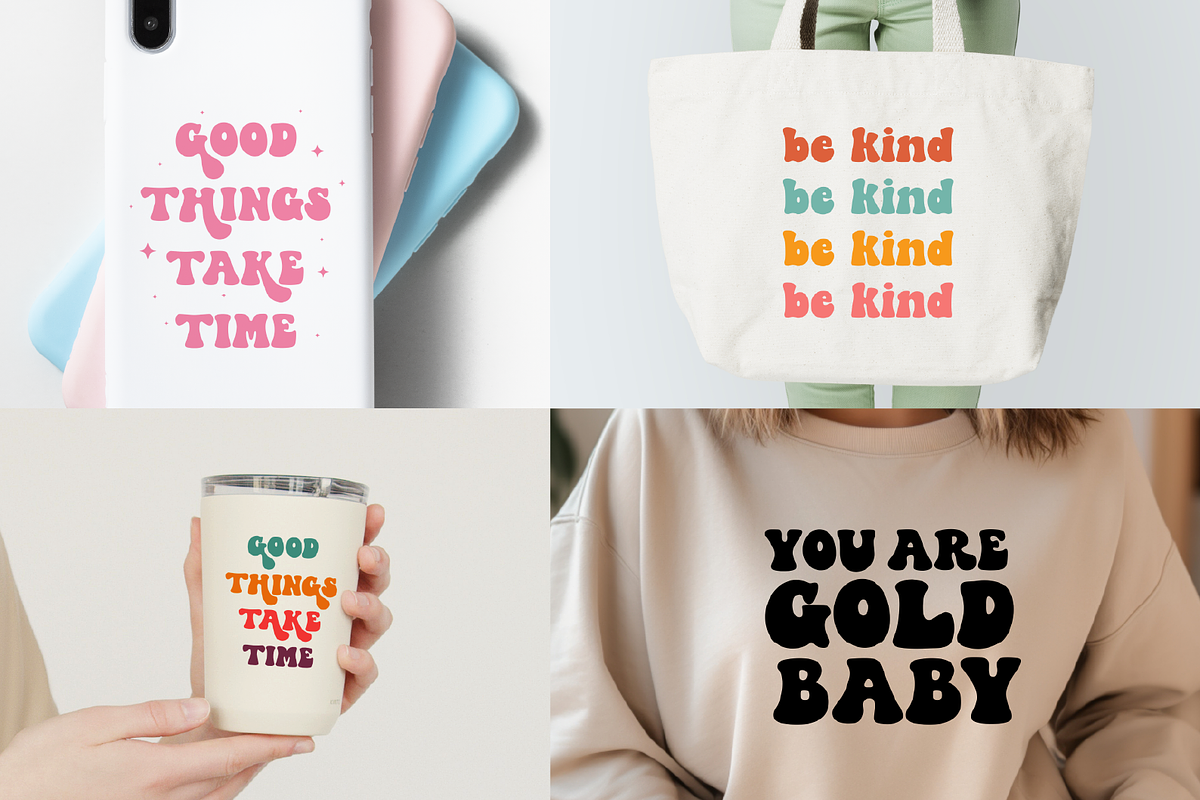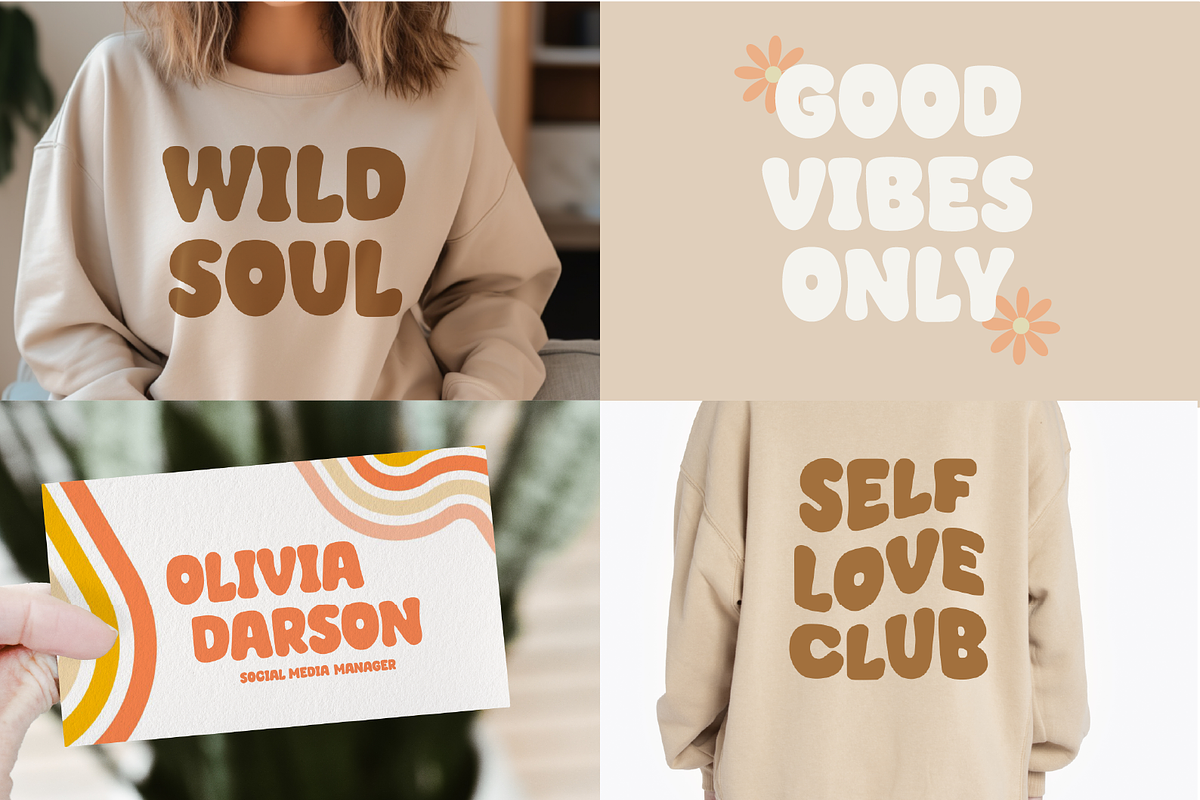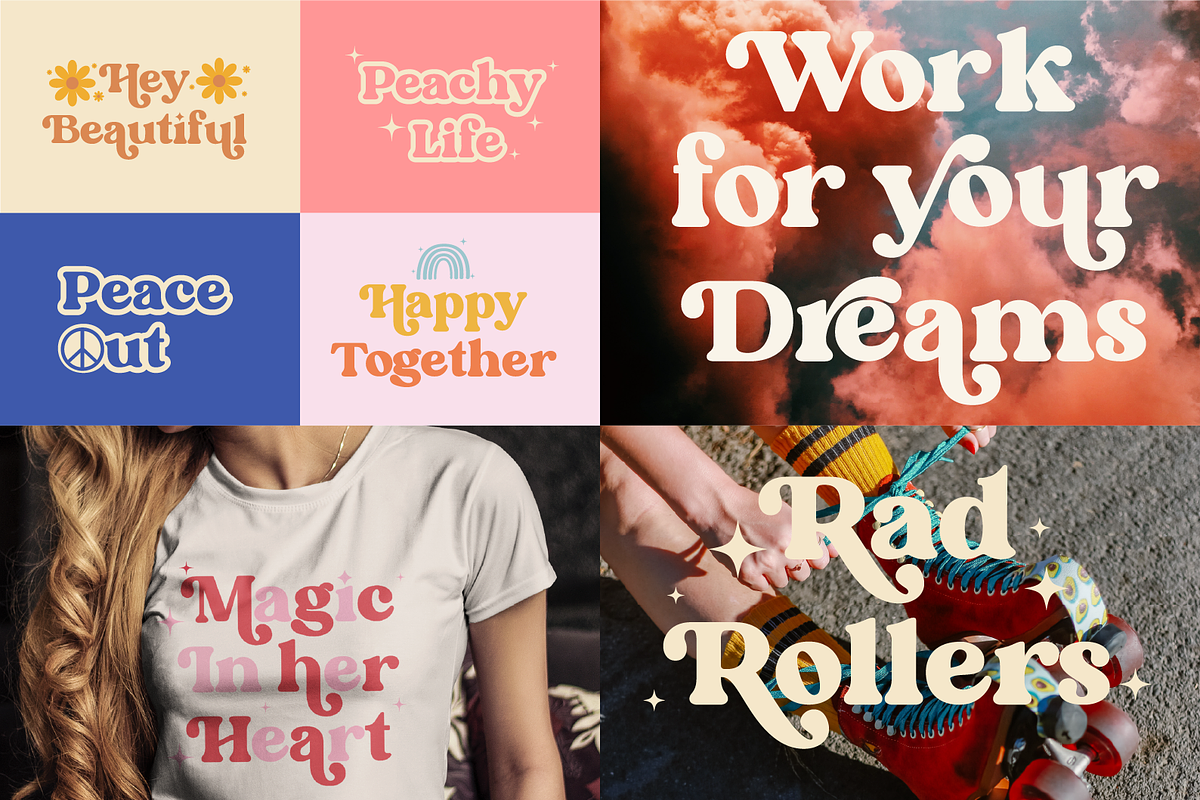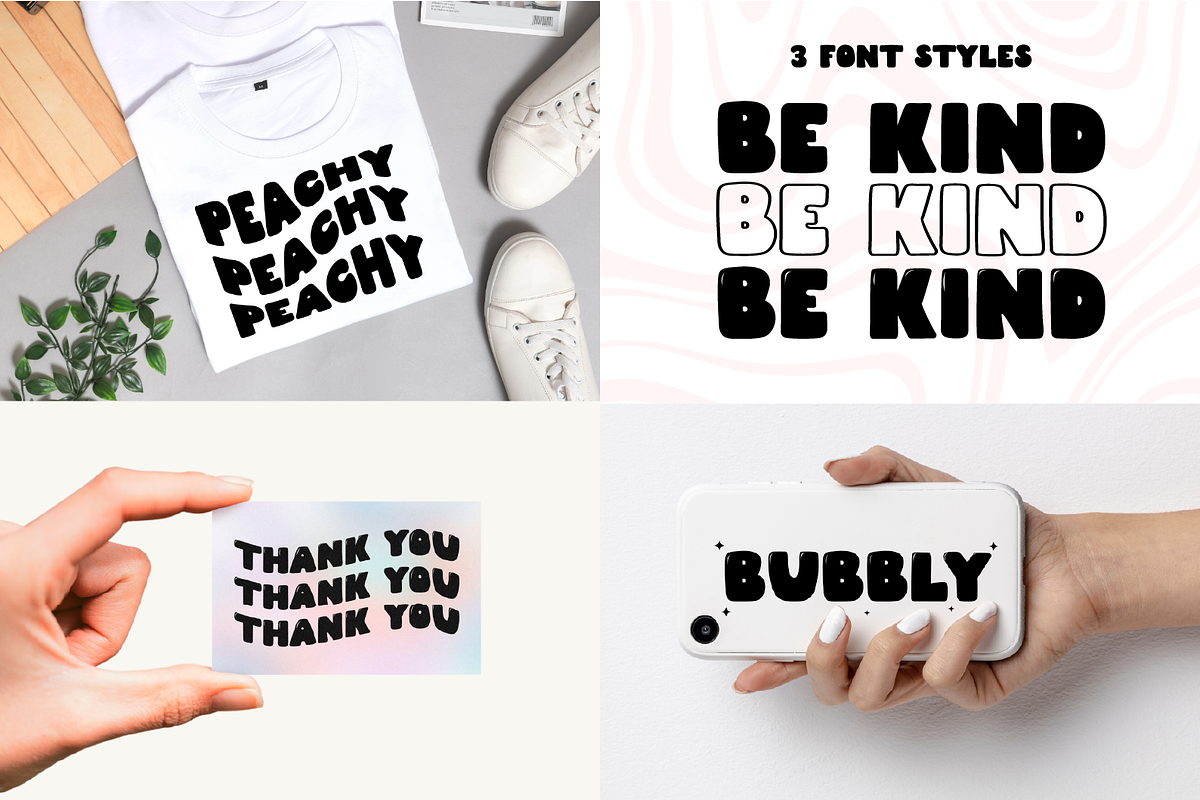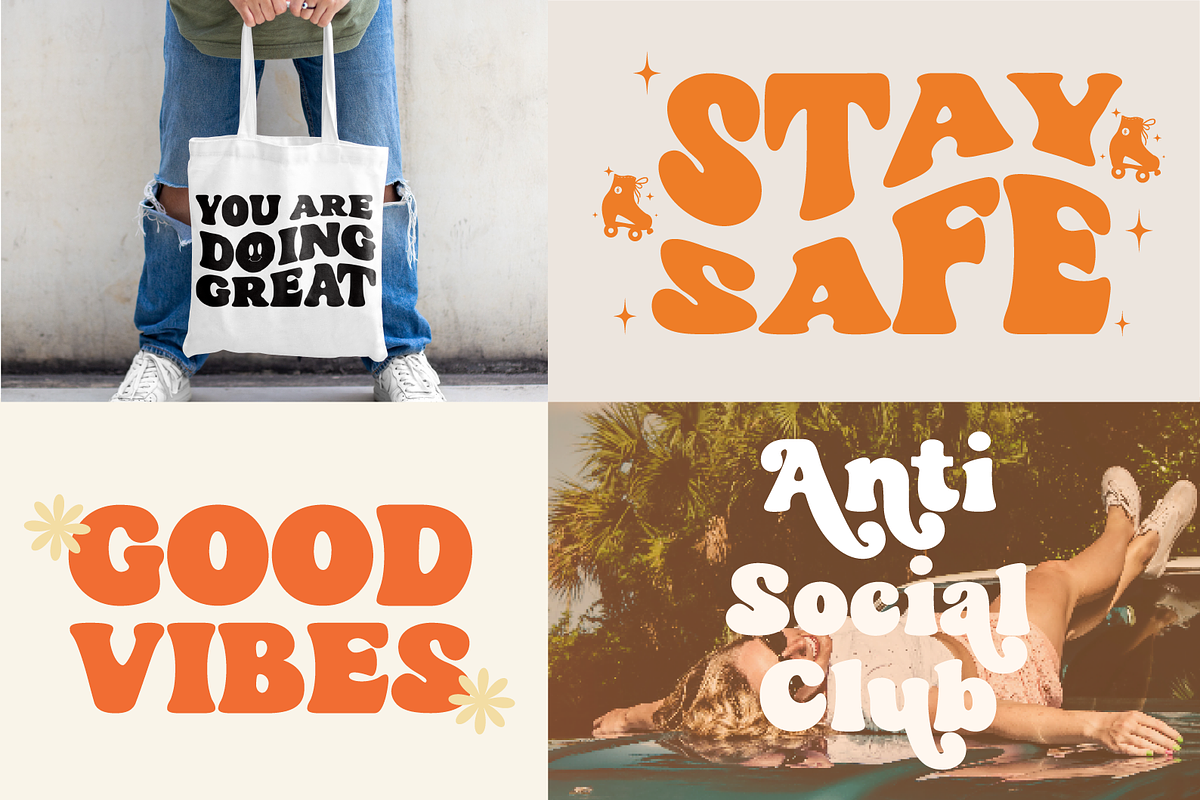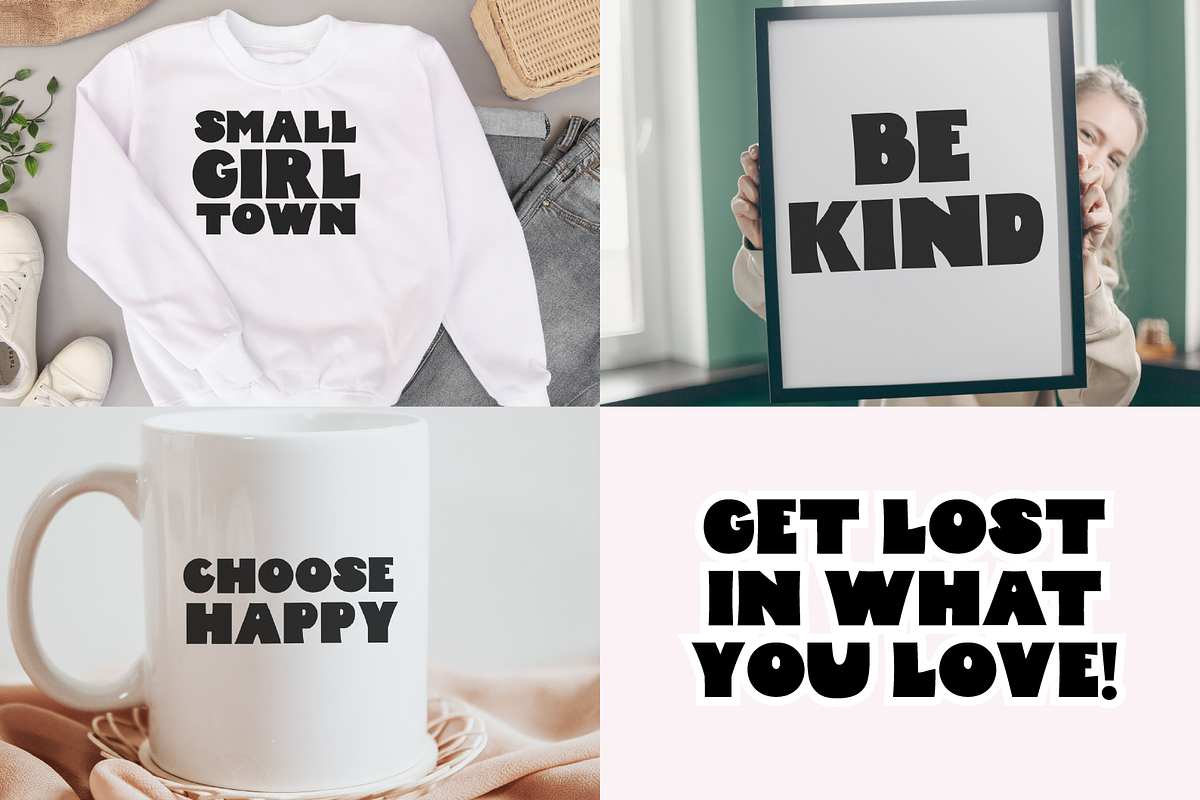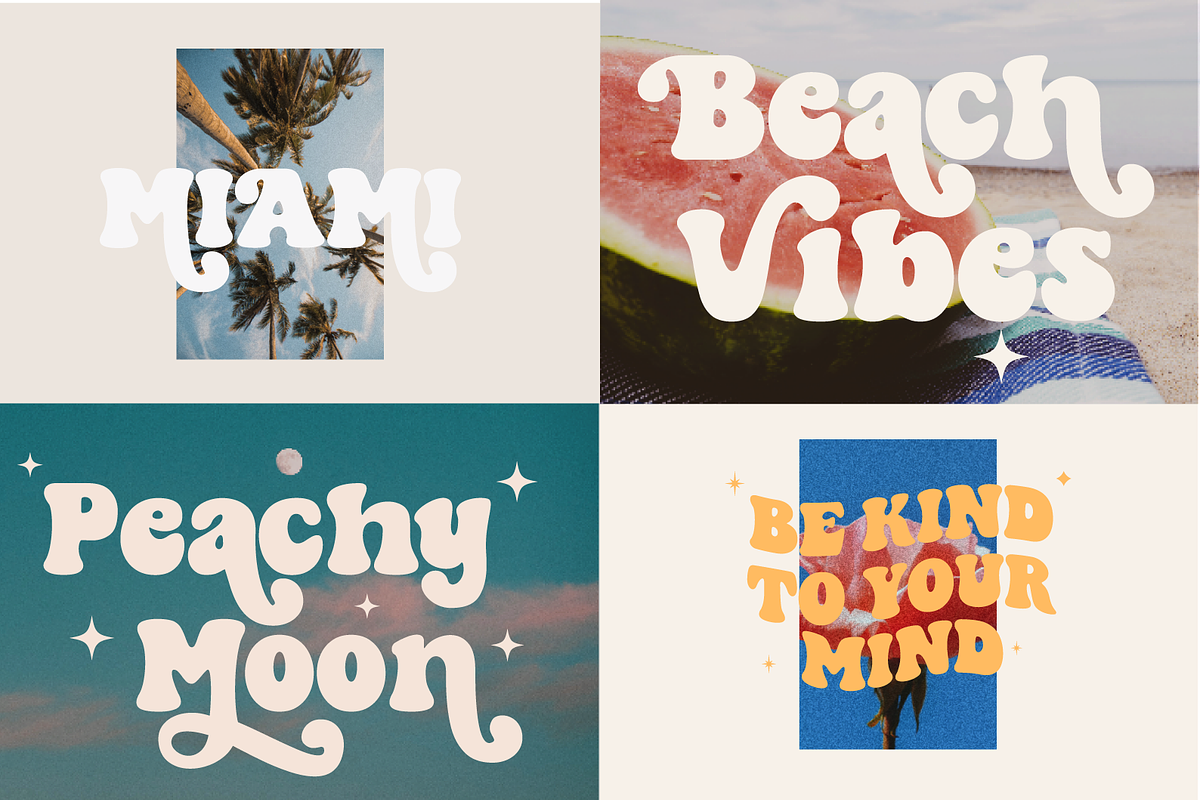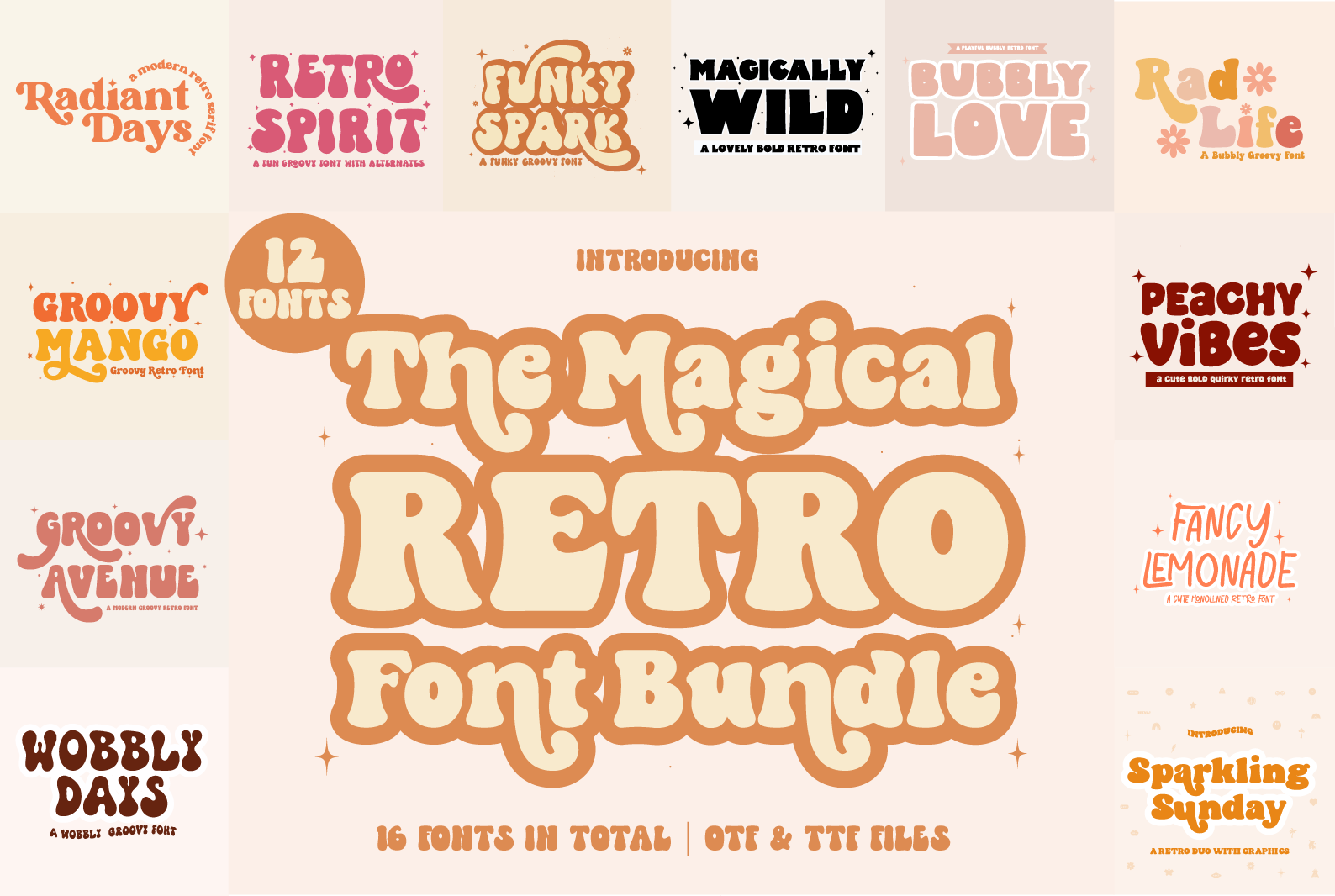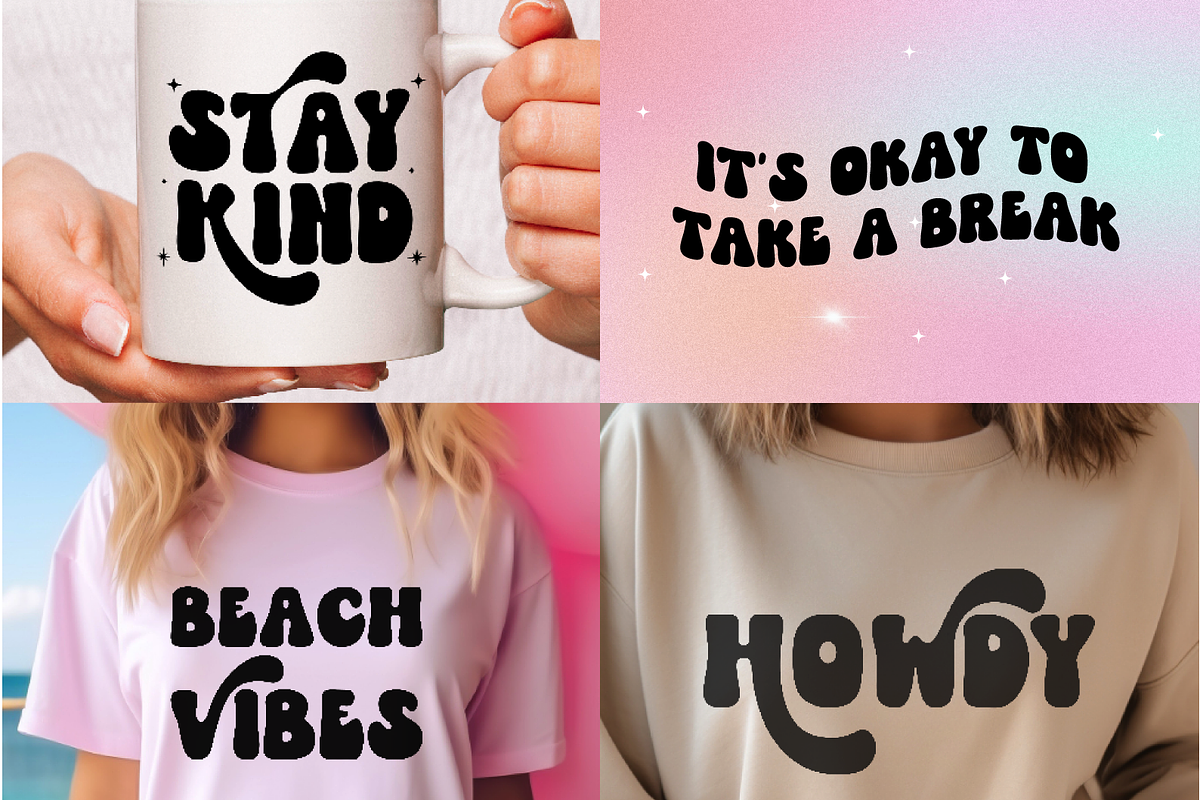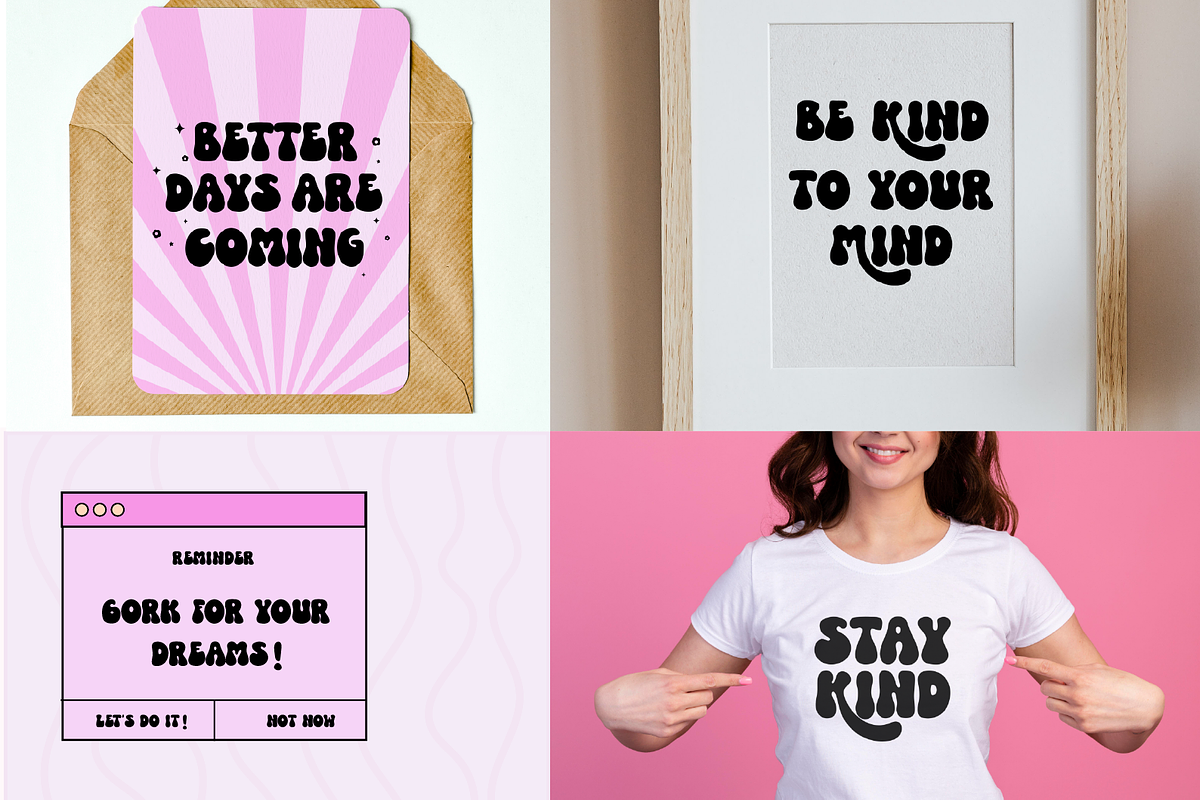
The Magical Retro Font Bundle
Introducing The Magical Retro Font Bundle — a collection of 12 fonts that combine cuteness, grooviness, and retro charm. Elevate your designs with a touch of nostalgia and vibrant personality. Stand out from the crowd and let your creativity shine with this cute and groovy bundle.